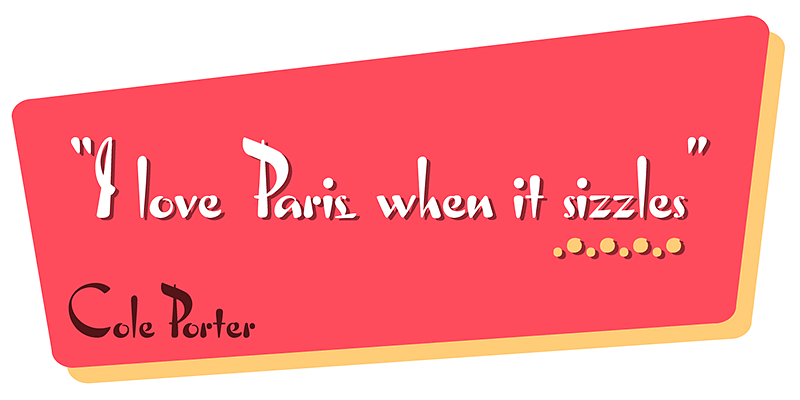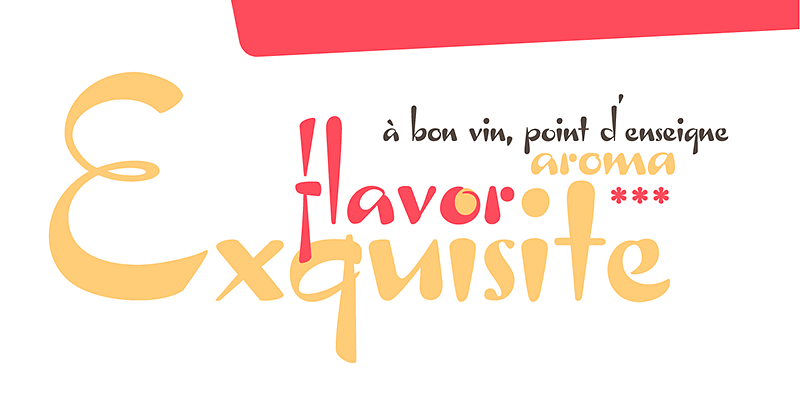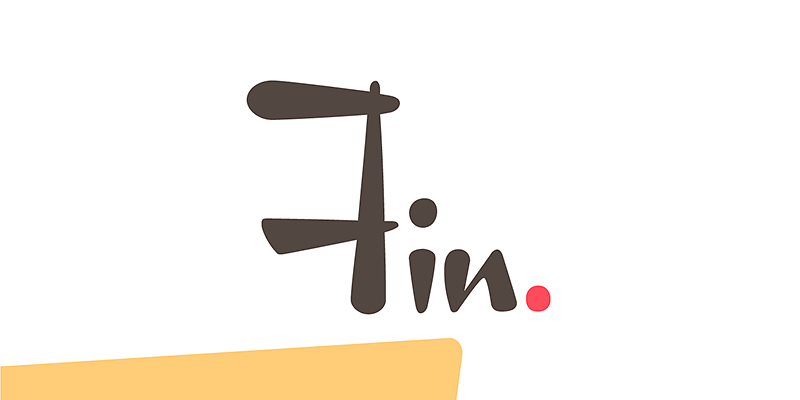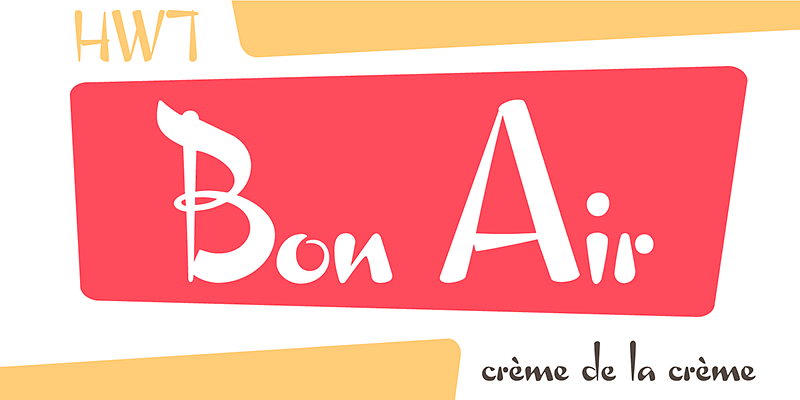
HWT Bon Air was originally created in 1958 for the Morgan Sign Machine Co. in the mid 20th century. Its lively strokes and odd details give it an exotic flavor suitable for advertising display work.
Hamilton Wood Type Collection, established in 2012, is a joint venture between P22 Type Foundry and the Hamilton Wood Type & Printing Museum. The founding goal was to safeguard a typographic era and make classic wood type designs available as digital fonts for modern audiences. This historical collection of serif revivals, sans reinterpretations, decorative embellishments, script reclamations, and original chromatic designs is stunningly relevant and usable for any imaginative design practice.